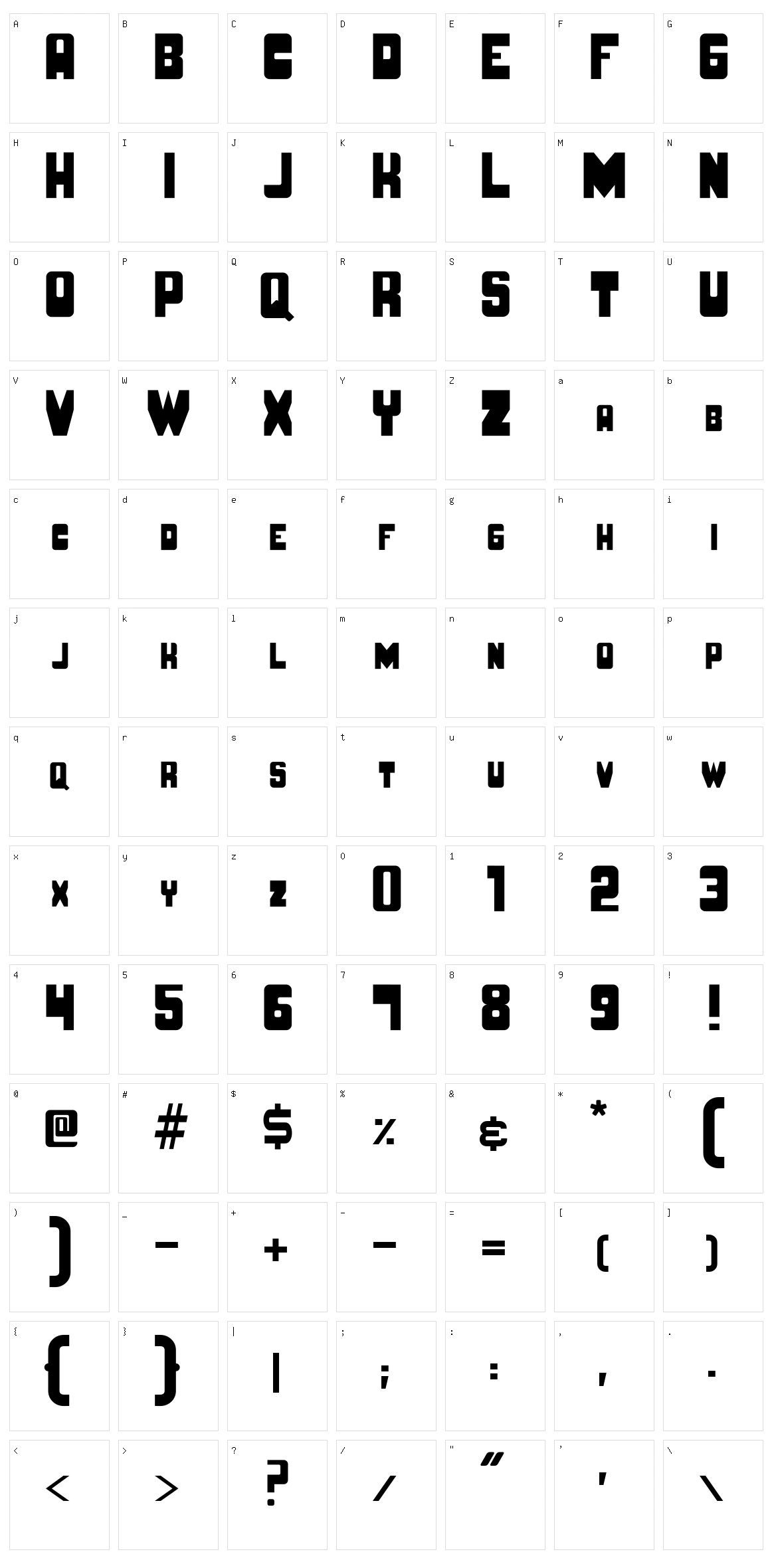
The free font Bruto is carefully designed by AgustÃÂn Laitán, showcasing a thoughtful balance of creativity and usability and falls under the Groovy font style. When you download the ZIP file, it contains only 6.98 KB of font files, making it lightweight and quick to download. Please review the license details below to understand permitted usage and distribution rights. If license information is not available, we recommend using this font for personal projects only or contacting the author directly for commercial usage permissions.